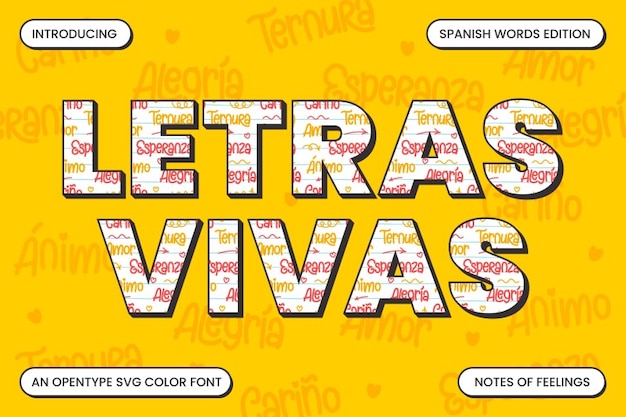
Letras Vivas Font
Letras Vivas is a lively, school-inspired typeface that feels like it jumped right out of a notebook. With a Spanish spirit and a touch of scribbled spontaneity, it captures the energy of handwritten words in motion. Perfect for playful, educational, or youthful designs full of expression.